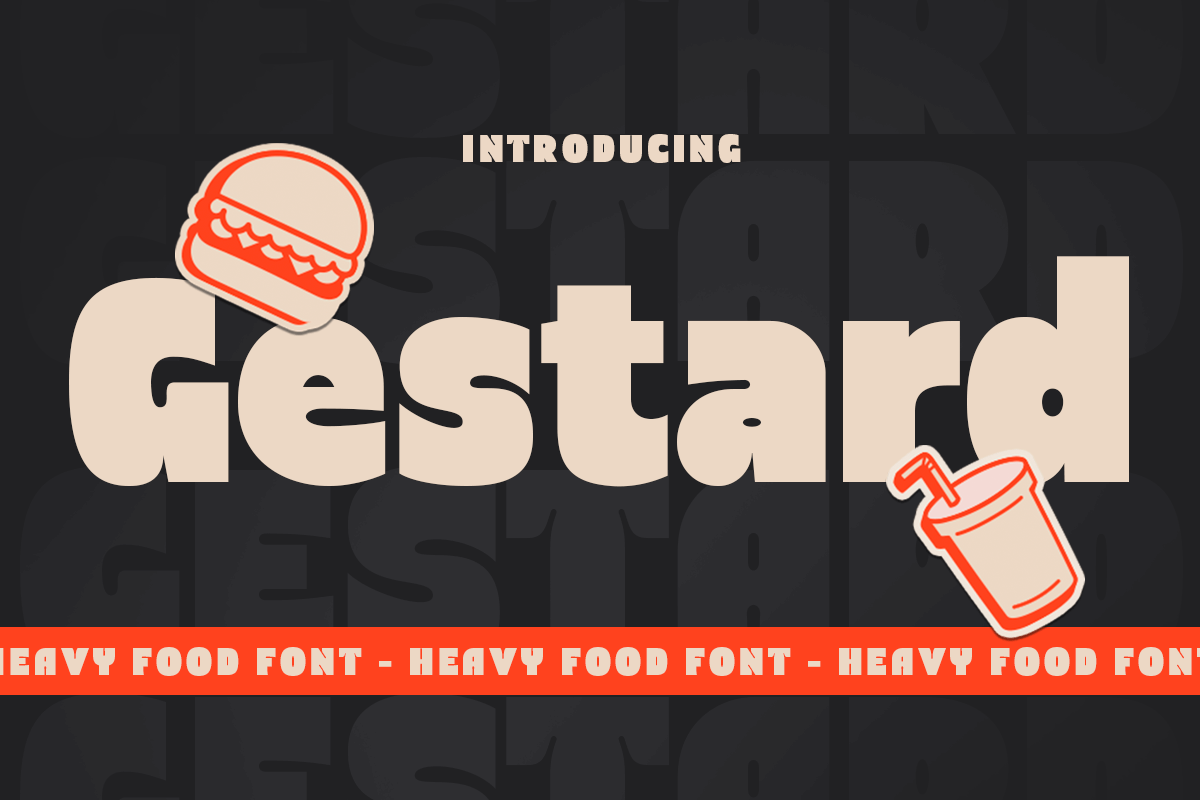
Gestard
-Headline Food FontGestard is a bold, heavy font designed to make your food-related headlines and designs stand out. Inspired by the robust and hearty nature of gourmet meals, Gestard delivers a powerful visual impact that’s perfect for menus, restaurant branding, and culinary designs. Whether you're designing a striking menu, creating a logo for a gourmet restaurant, or developing mouth-watering branding materials, Gestard adds a rich and bold touch to your projects.
The Story Behind Gestard:
Gestard was inspired by the visual and sensory richness of gourmet cuisine. Designed with a heavy, bold style, Gestard captures the essence of indulgence, satisfaction, and culinary artistry. It’s perfect for any project that needs to convey a sense of boldness and flavor. From upscale restaurants and cozy cafes to gourmet food trucks and culinary festivals, Gestard is the ideal font for all things food-related.
Gestard Font Features:
Bold Design: Perfect for making impactful headlines and standout food branding.
Versatile Usage: Ideal for restaurant logos, menus, packaging, and culinary designs.
High Legibility: Ensures your text is clear and easy to read.
Gourmet Aesthetic: Adds a rich and indulgent feel to your food-related projects.
Inspirational Previews: Includes sample designs to showcase the font's potential and ignite your creativity.
Elevate your culinary designs with Gestard and add a bold, flavorful touch to your work.